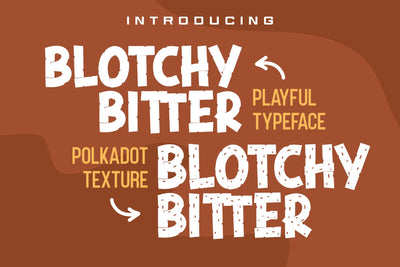
Blotchy Bitter - Playful Typeface
Blotchy Bitter - Playful Typeface is made with a regular version and a polka-dot textured version ready to perfect the design in your project.
Blotchy Bitter is perfect for design, logos, social media, branding, advertising, product design, handwritten quotes, product packaging, headers, posters, merchandise, and other designs.
+ Standard glyphs Allcaps
+ Ligature
+ Multilingual Accent